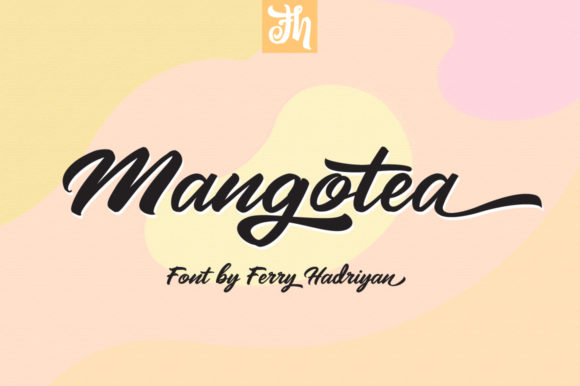
Introducing Mangotea, the script font that will ignite your creativity and elevate your designs to new heights!
Step into a world of captivating letterforms, where each stroke dances with an unparalleled energy. Mangotea is not just a font; it's an expression of your individuality, a tool to unleash your inner artist.
Embrace the thrill of creating unique logos that stand out from the crowd, leaving an unforgettable mark on your audience. Craft stunning invitations that evoke elegance and charm, setting the tone for unforgettable events. Let your social media posts radiate with personality, engaging your followers with captivating visuals.
With Mangotea, the possibilities are endless. Its bold and vibrant characters will infuse your work with a touch of magic, transforming ordinary designs into extraordinary masterpieces.
Don't settle for mundane fonts that blend into the background. Choose Mangotea, the script font that will ignite your passion and empower you to create designs that truly shine.
Indulge in the world of Mangotea, where creativity knows no bounds. Let your imagination soar and witness the captivating power of fonts that speak volumes.